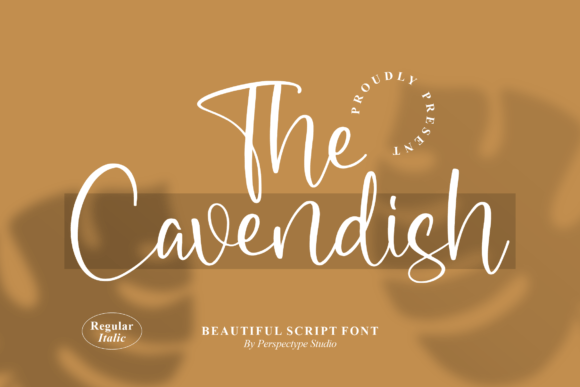
Journey into the realm of creative expression with The Cavendish Font, an exquisitely crafted script font that will infuse your designs with elegance and personality. Step into a world where your words dance across the page, each letter a testament to your unique style and vision.
The Cavendish Font is not merely a collection of characters; it's an invitation to embark on a creative odyssey, where your imagination takes center stage. Its modern and distinctive shape, coupled with its natural writing style, breathes life into your typographic creations. Whether you're a seasoned designer or just starting your creative journey, The Cavendish Font will elevate your projects to new heights.
Experience the transformative power of The Cavendish Font in your branding endeavors. Create logos that captivate audiences and leave a lasting impression. Design web pages that exude sophistication and style. Elevate your editorial content with typography that commands attention. The possibilities are boundless, waiting for you to unleash your creativity and make your mark on the world.
With The Cavendish Font, you'll effortlessly craft wedding invitations that radiate romance and timeless beauty. Create heartfelt cards that convey your love and appreciation in a way that words alone cannot. Design labels and packaging that exude elegance and distinction. Immortalize names and special occasions in stunning calligraphy. The Cavendish Font is your creative companion, ready to transform your ideas into tangible works of art.